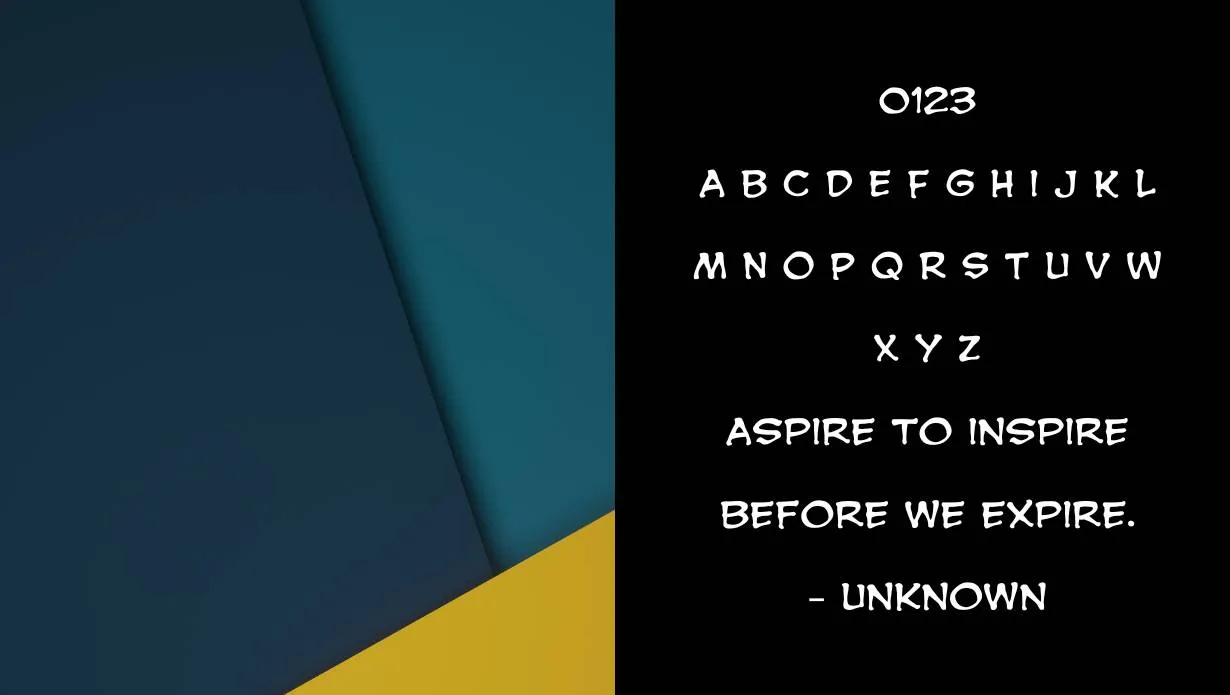
Spooky Tooth Font is a unique fancy typeface designed by John Roshell. This Font is a great comic font that was released by Comicraft. The font is also available in two widths: normal and condensed.
It has a condensed texture style and has a pairing personality with other unique style typefaces just like gilligans island font. The font is available in a wide range of glyphs and widths, making it a versatile choice for any project.
| Name | Spooky Tooth Font |
| Designer | John Roshell |